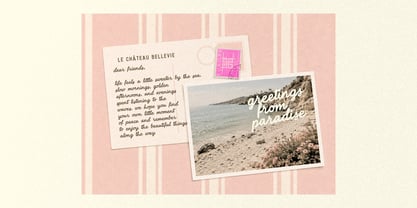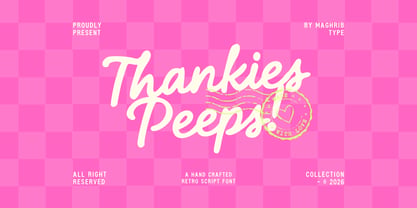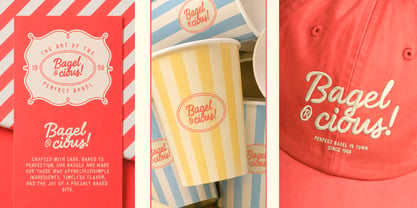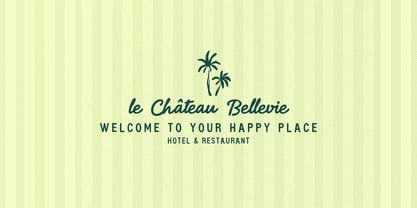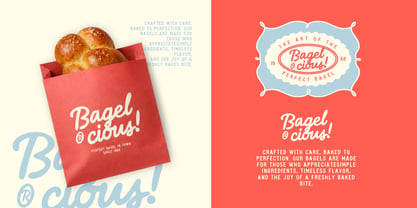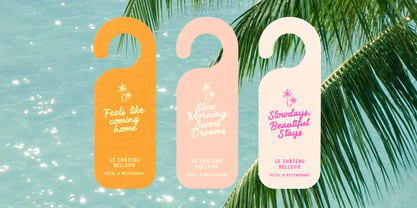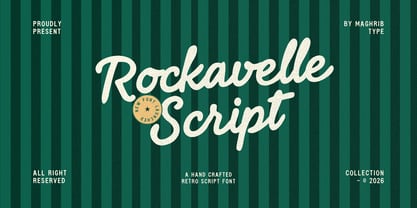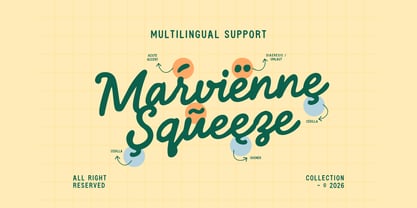
Rockavelle
A família de fontes Rockavelle foi desenhada por Rizky Setyaludin e publicada pela Maghrib Type. Rockavelle contém 1 estilos. Saiba mais sobre esta família
Rockavelle Script
Rockavelle Script is a playful hand-crafted retro script typeface inspired by the carefree spirit of summer, tropical destinations, vintage signage, and nostalgic Christmas holidays.
Its bold, flowing letterforms bring an expressive handmade character to logos, branding, packaging, posters, apparel, invitations, greeting cards, social media graphics, and seasonal artwork.
Designed with a warm retro personality, Rockavelle works beautifully for summer campaigns, beach and resort branding, tropical products, Christmas packaging, holiday designs, vintage logos, food branding, and lifestyle projects.
Rockavelle Script is a versatile choice for designers looking to combine retro charm, handwritten character, summer vibes, and festive nostalgia in one distinctive typeface.